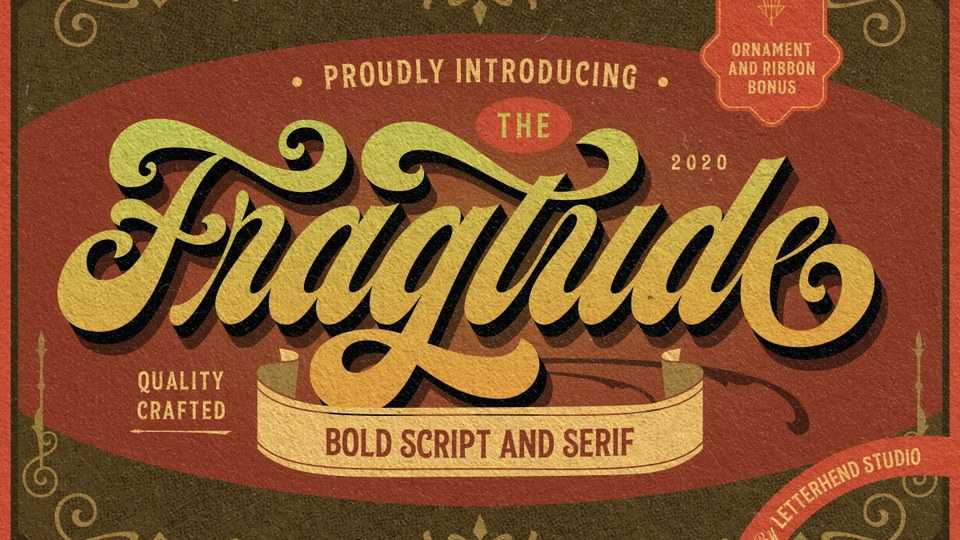
Download Fragtude font, a spectacular vintage script typeface Incredibly versatile, Fragtude fits a wide range of designs, elevating them to the highest levels.